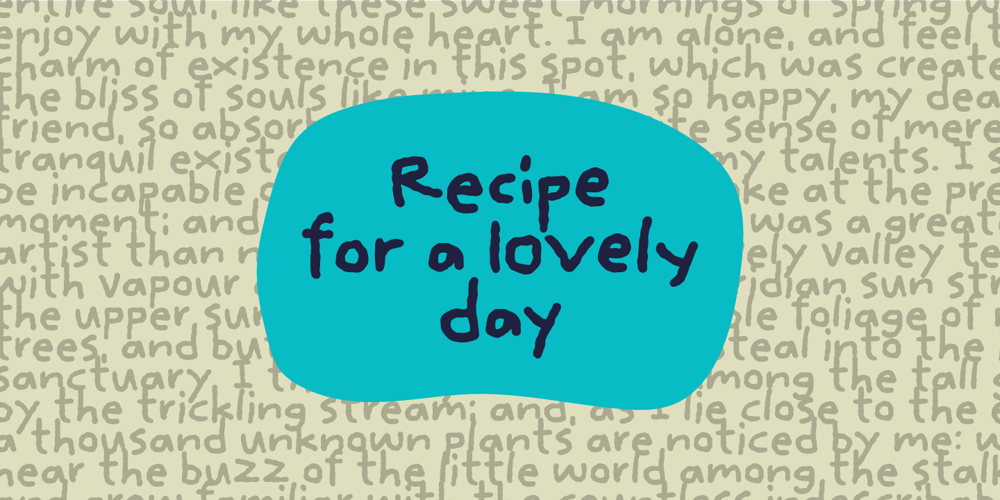
Recipe for a lovely day Font Family was designed by Jakob Fischer and published by PizzaDude.dk. Recipe for a lovely day contains 2 styles and family package options. Originally I planned to call this font “pegefinger” which is index finger in danish. Due to the obvious reason that I drew the letters using my “pegefinger” :)Most letters mimic a loose (perhaps even childish) handwriting, but the legibility is never out of hand.I’ve added 5 different versions of each lowercase letter, and they automatically changes as you type!